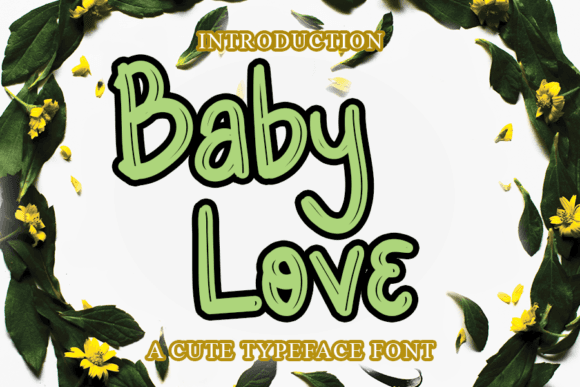
Baby Love Font for Headlines, Posters and Branding Projects
Baby Love is a display font packed with charm and confidence, crafted specifically for headline applications, poster layouts, and identity design. Its thick strokes and rounded curves give it a joyful and accessible tone that stands out in both print and digital formats.
Ideal for designers who want their message to be seen and felt, Baby Love bridges playful aesthetics with professional clarity, making it a great addition to your font library for standout projects.
- Brand and identity designers
- Event and poster creators
- Marketing professionals
- Print designers and publishers
- Artists building youth-oriented visuals
- Posters and promotional banners
- Branding kits and logo designs
- Children’s product packaging
- Social media graphics
- Event flyers and themed signage
- Perfect balance of playful and bold
- Excellent for youth and family branding
- Highly readable in large formats
- Works seamlessly in print and web projects
- Memorable character style with personality
Q: What type of font is Baby Love?
A: Baby Love is a bold display font ideal for headlines, poster designs, and branding projects needing strong visual impact.
Q: Can I use this for professional marketing materials?
A: Yes. Its clarity and presence make it ideal for advertisements, flyers, and branding campaigns.
Q: Is it suitable for large format designs?
A: Absolutely. Baby Love is designed for visibility and impact in posters and banners.
| Feature | Baby Love | Headline Font A | Headline Font B |
| Tone | Playful and bold | Elegant and sharp | Retro and vibrant |
| Best Use | Posters, branding, children’s products | Editorials and luxury branding | Party flyers and packaging |
| Display Strength | High-impact visibility | Sharp and clean | Eye-catching and fun |